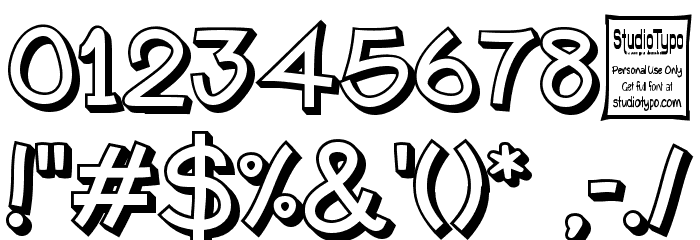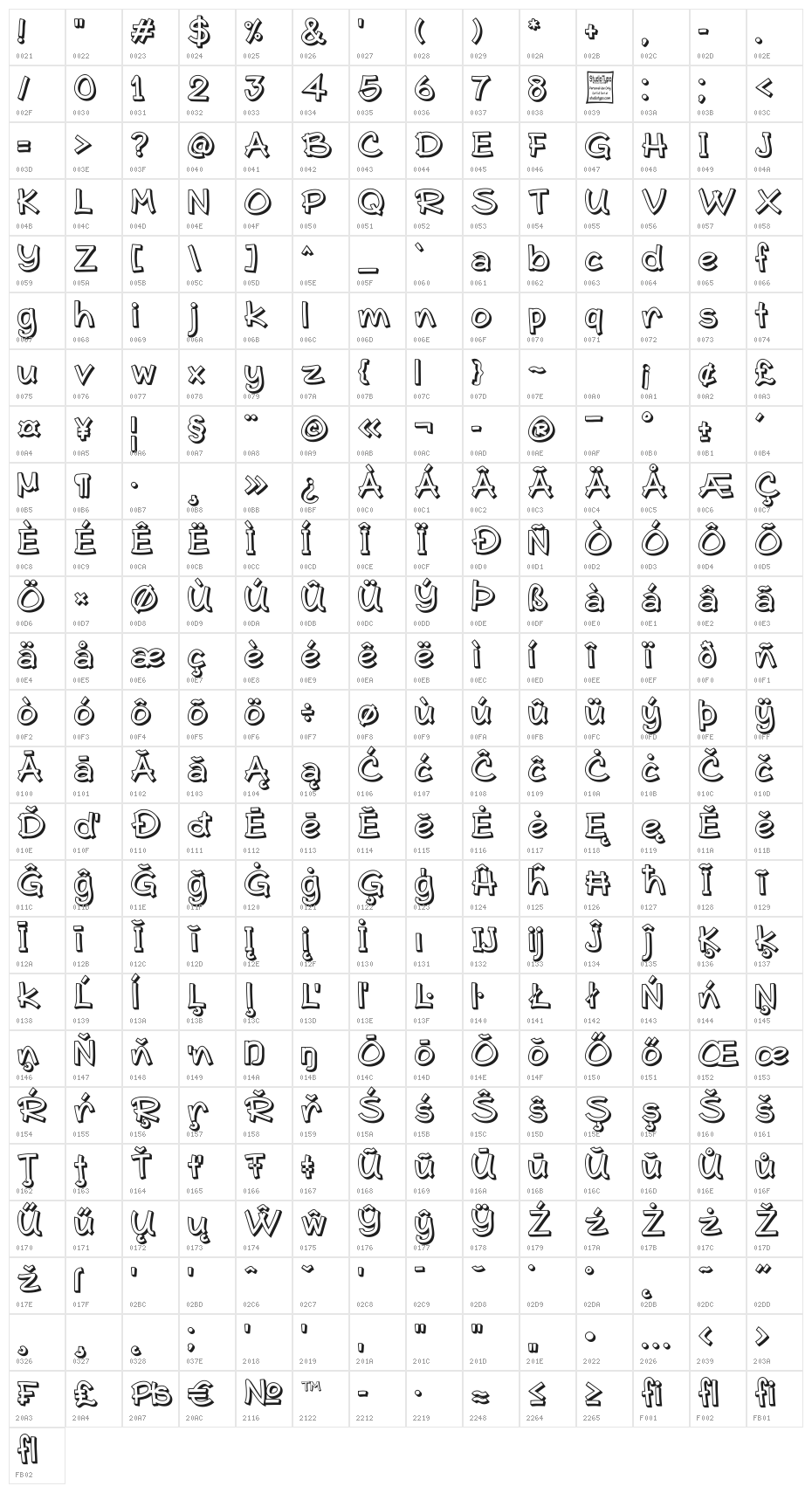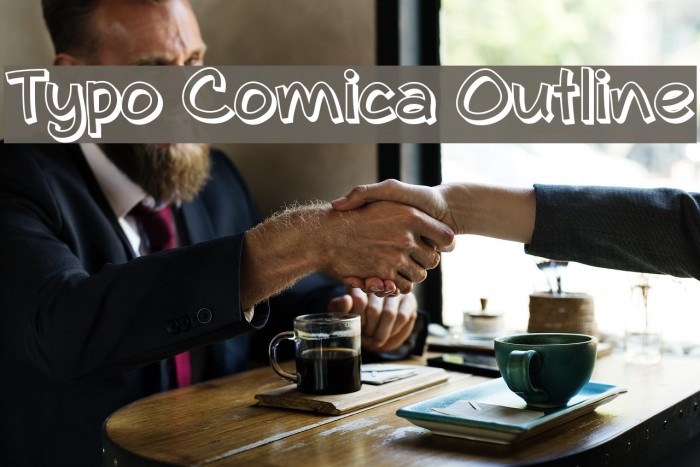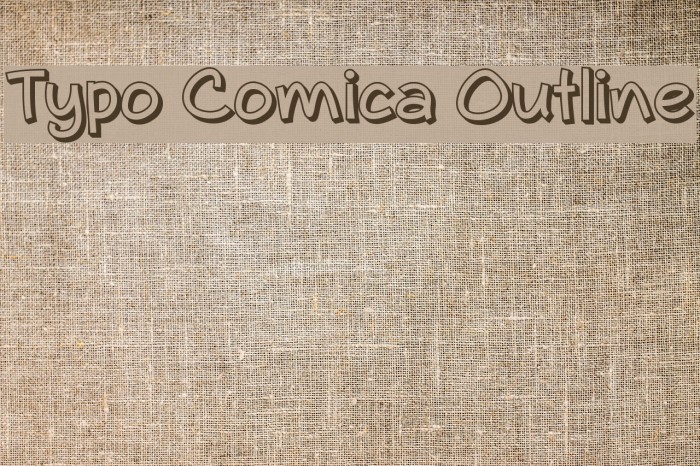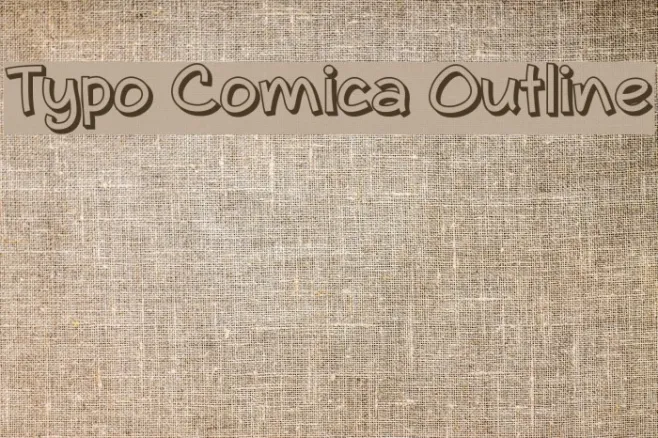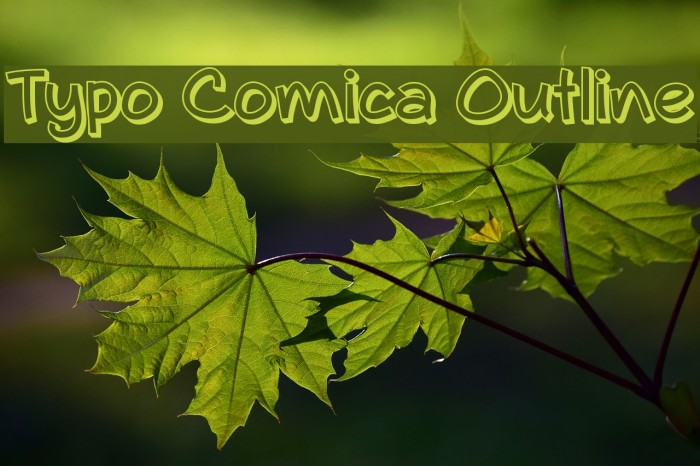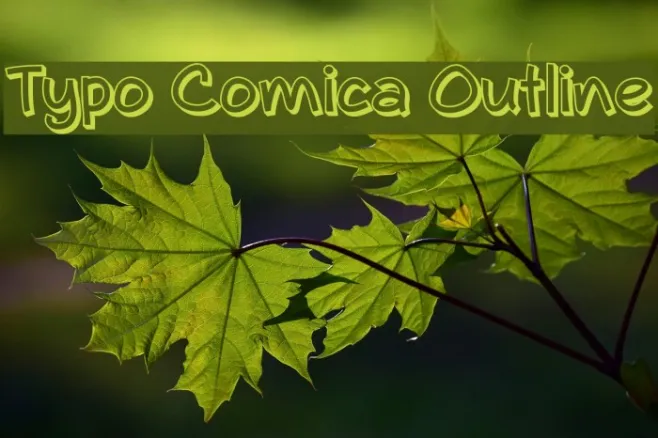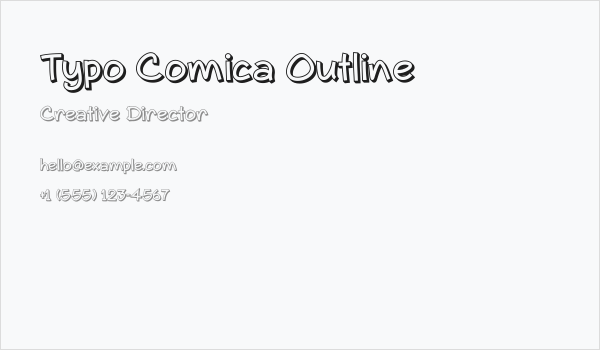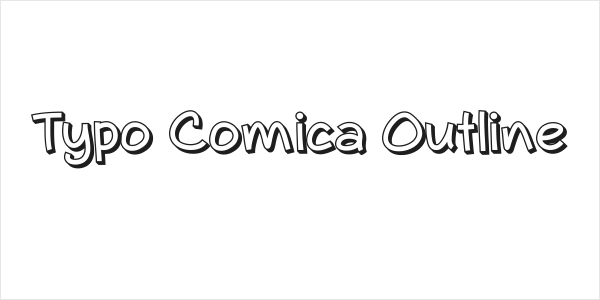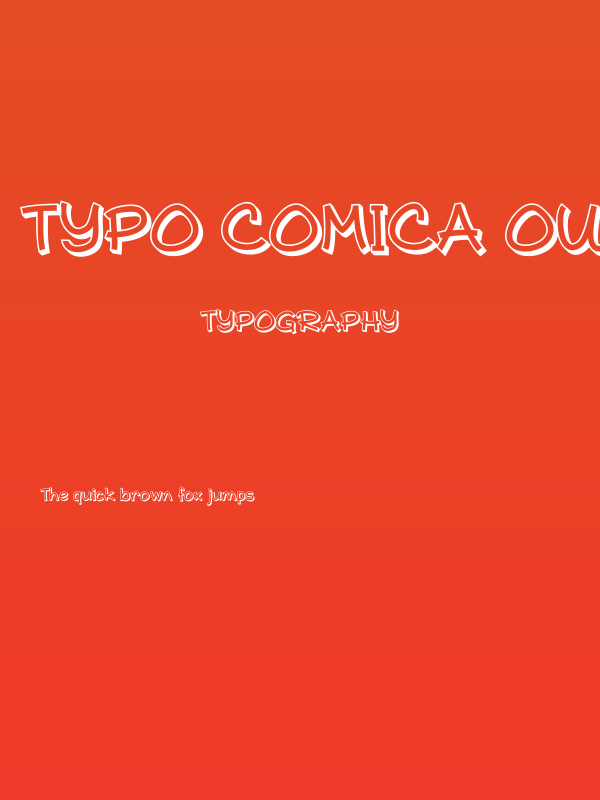
Typo Comica Outline Font
Typo Comica Outline Description
This playful and bold font features an outlined style that gives it a comic-like appearance. The characters are rounded and slightly irregular, adding a whimsical and informal touch. The uppercase and lowercase letters maintain a consistent style, with a strong emphasis on readability and fun. The numbers and special characters follow the same playful design, making them perfect for creative projects. The font's outline adds a layer of depth, making it stand out in various applications.
| Overall Style | Playful, Comic |
| Proposed Projects | Ideal for comic books, children's books, posters, and playful branding projects. |